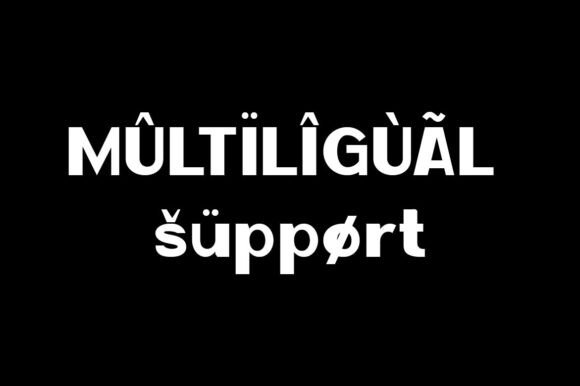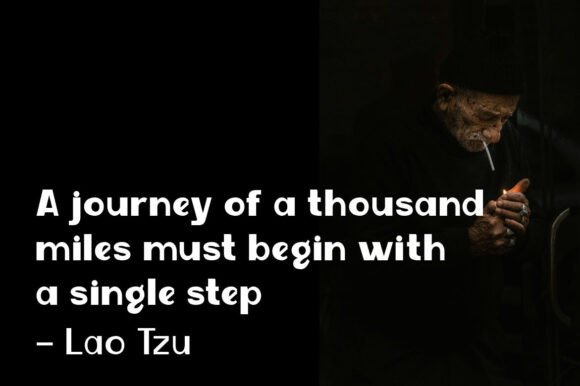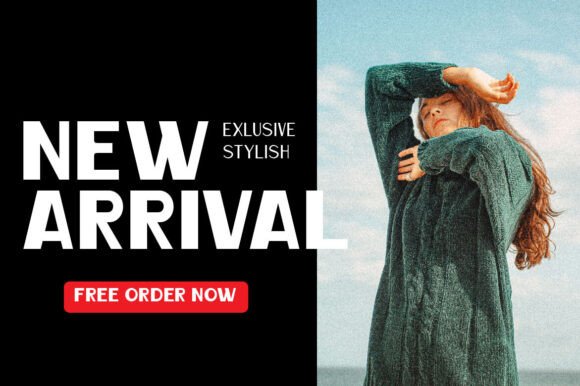
Hilgers Font
Hilgers is a sans serif modern and classic typeface that has own unique style & modern look. This typeface is perfect for an elegant & luxury logo, book or movie title design, fashion brand, magazine, clothes, lettering, quotes, and so much more. These font is Elegan sans font family with 9 style weight. Ranging from light to black weights. that stays trendy on all occasions and is easy to read. This font is very suitable for various creative needs such as printing, books, titles, headlines, photography, decoration, branding, logos, text document and more